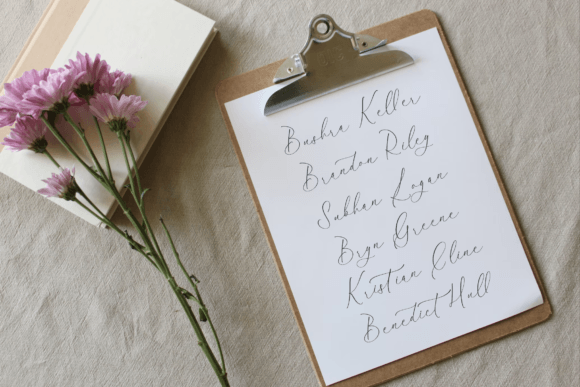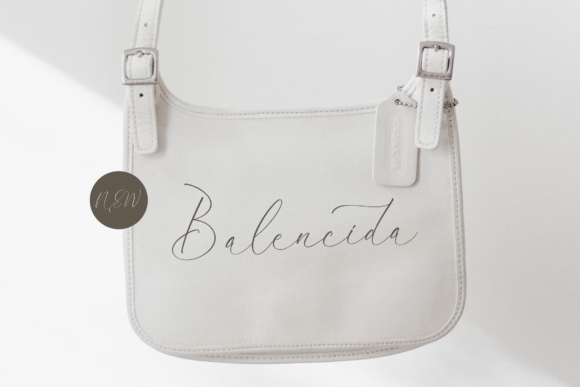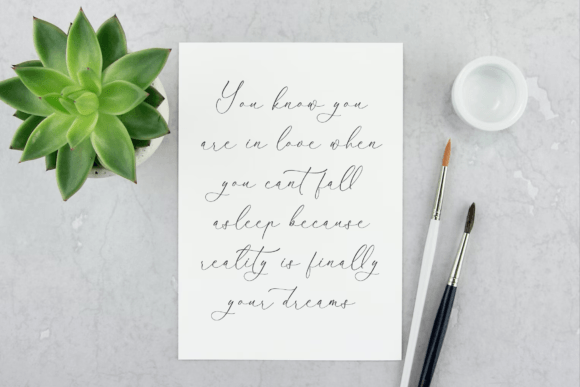
Introduction to Qloveland Marrtin Font
Have you ever stared at a blank page, trying to bring a creative project to life? The cursor blinks, taunting you with every passing moment. Suddenly, inspiration strikes, and you see it – a beautiful, flowing script that captures the essence of your idea. This is exactly what the Qloveland Marrtin Font does for designers, bringing a touch of elegance to even the simplest of designs.
This lovely and timeless signature script font is the perfect choice for creating eye-catching logos, branding, and quotes. With its unique and beautiful touch, every letter comes alive, making your design truly stand out. The Qloveland Marrtin Font is a valuable resource for designers, offering a high-quality option for free download with a transparent background.
Key Features of Qloveland Marrtin Font
- High-quality, professional font perfect for creative projects and design resources.
- Features a unique, modern design with a transparent background, allowing for seamless integration into various backgrounds.
- Perfect for use in a variety of creative projects, including logos, branding materials, and digital art.
Honest Review: Qloveland Marrtin Font
As a designer, I’m always on the lookout for high-quality design resources to elevate my creative projects. Recently, I stumbled upon the Qloveland Marrtin Font, and I’m excited to share my honest review with you.
- ✨ Beautiful, hand-drawn illustrations that add a personal touch to any design.
- ✨ High-quality typography that’s perfect for creating eye-catching headings and titles.
- ✨ A transparent background makes it easy to layer with other design elements.
- ⚠️ Limited font styles, which may not be suitable for complex design projects.
- ⚠️ Not ideal for use in small text sizes due to the delicate nature of the illustrations.
Overall, I’m impressed with the Qloveland Marrtin Font’s unique charm and versatility. While it may have some limitations, it’s a great resource for designers looking to add a touch of personality to their work. Whether you’re working on a personal project or a client design, this font is definitely worth checking out.
The Qloveland Marrtin Font is a versatile design resource that can be used for a variety of creative projects, including graphic design, digital art, and even web design. Some common use cases for the font include:
- Creating logos and branding materials
- Designing digital graphics and illustrations
- Creating presentations and documents